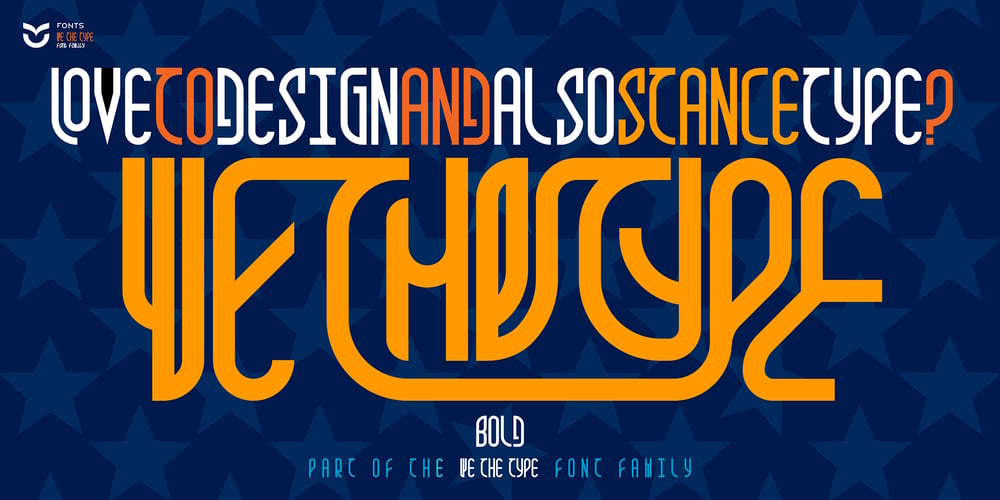
WeTheType
WeTheType font
WeTheType Font Family was designed by Tony Evreniadis and published by VisualizeUnited Fonts. WeTheType contains 1 styles and family package options. The “WeTheType” Font Family is a display typeface, in upper and lower case characters, the first of a broader set. Having a corporate and music-like motion feel, it is suggested for titles, books, music albums, posters, ads, logos, TV Spots, Billboards. It is offered in a Latin, Extended Latin, & Central European character set, now in one style: Bold, for Desktop, at this time.Have fun designing your projects and feel free to share your applications/designs with me, if you please. Thank You!